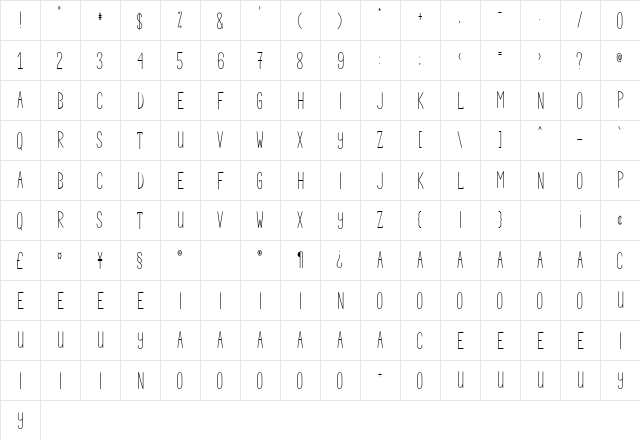
Farmilia - PERSONAl Regular Font Preview
Farmilia - PERSONAl Regular
Farmilia - PERSONAl Regular Font Details
Design Context for Farmilia - PERSONAl Typeface
Farmilia - PERSONAl is a composed and adaptable typeface that performs quietly and consistently across a wide range of design contexts.